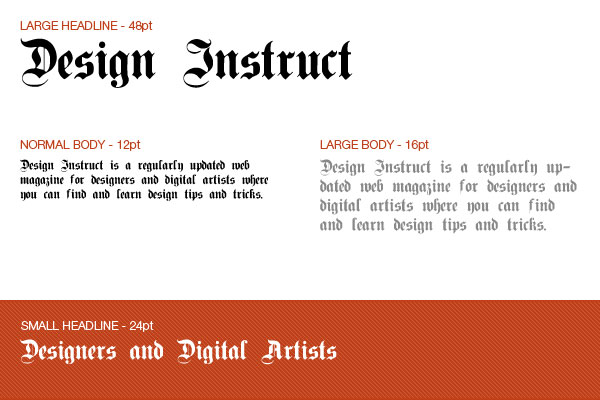
12+ Blackletter Font Free Creativefabrica. It is customary to divide blackletter fonts chronologically on textura, rotunda, schwabacher and fraktur. 1001 free fonts offers a huge selection of free fonts. Only fonts with accents euro. Aginoe modern sans font family, black gothic font, blackletter, fraktur, gothic font, label shapes, medieval, medieval font, tattoo illustration. Blackletter fonts have letters that are very bold and ornate. We have 312 free blackletter fonts to offer for direct downloading · 1001 fonts is your favorite site for free fonts since 2001. 23 free blackletter fonts direct download. Download the best free blackletter fonts, that are hand picked collections by our editorial experts and can be used on mac, pc, website. Download 10,000 fonts with one click for $19.95. Blackletter fonts imitate the handwritings used in medieval manuscripts, predominantly in europe. Graphite blackletter font is a display typeface read more. The best selection of blackletter fonts for windows and macintosh. We have 268 free blackletter fonts to offer for direct downloading · 1001 fonts is your favorite site for free fonts. It is a western calligraphy style that was used in europe from 1100s to the 1600s. Licensed for personal and commercial use.
53 Free Blackletter Fonts Dafont Free. We have 268 free blackletter fonts to offer for direct downloading · 1001 fonts is your favorite site for free fonts. Aginoe modern sans font family, black gothic font, blackletter, fraktur, gothic font, label shapes, medieval, medieval font, tattoo illustration. Download the best free blackletter fonts, that are hand picked collections by our editorial experts and can be used on mac, pc, website. Blackletter fonts have letters that are very bold and ornate. Graphite blackletter font is a display typeface read more. Only fonts with accents euro. Download 10,000 fonts with one click for $19.95. The best selection of blackletter fonts for windows and macintosh. It is customary to divide blackletter fonts chronologically on textura, rotunda, schwabacher and fraktur. 23 free blackletter fonts direct download. 1001 free fonts offers a huge selection of free fonts. Licensed for personal and commercial use. Blackletter fonts imitate the handwritings used in medieval manuscripts, predominantly in europe. We have 312 free blackletter fonts to offer for direct downloading · 1001 fonts is your favorite site for free fonts since 2001. It is a western calligraphy style that was used in europe from 1100s to the 1600s.
By typesetter and type designer dieter steffmann, cloister blackletter is a popular gothic script font. Aginoe modern sans font family, black gothic font, blackletter, fraktur, gothic font, label shapes, medieval, medieval font, tattoo illustration. Download the best free blackletter fonts, that are hand picked collections by our editorial experts and can be used on mac, pc, website. Blackletter extra bold blackletter.extrabold.ttf 71 kb 2. Browse by popularity, category or alphabetical listing. Frax mouse sketches free font download. Fonts of this category «blackletter». Font, font family, gothic, roman, set, ttf suited to your project, and it does not matter whether it is a printed poster or picture monitor. Welcome to fontlot · your favorite site for free fonts. This page lists the blackletter, which you can download absolutely free of charge and without registration. Usage blackletter may be downloaded and used free of charge for both personal and commercial use, as. Collection of most popular free to download fonts for windows and mac. Blackletter fonts often based upon calligraphic letters was used throughout europe from 12th to 20th century for text or literary works. Click here and download 432+ different blackletter fonts. See it used in heinritzh sales's illustration tutorial. Download free blackletter fonts for commercial and personal use. 2 styles uncategorized 4 downloads. This gothic font has 57 glyphs count number in variety and 2048 units of this font are equal to 1em. Free fonts, fonts, download free fonts, font lot. Commercial use (99) free for personal use (73) free handwritten (1) from lo (2) frutilla (1) fuentes (0) fuentes (3) fuentes de letras (5) functional (12). Download blackletter font (2 styles). Licensed for personal and commercial use. Blackletter typeface fonts sometimes referred to as gothic, fraktur or old english, are characterized by tight spacing, condensed lettering, dense black texture, and highly decorated caps. We have more than 13000 free fonts in over 100 font categories, including all font styles and font faces. By typesetter and type designer dieter steffmann, cloister blackletter is a popular gothic script font. Total in section 27 of the fonts available to free download. You can download this font for free from right here for your personal use only. 23 free blackletter fonts direct download. Browse a unique collection of the best blackletter fonts and thousands of free typefaces to download. Licence included with all fonts ✓. Blackletter fonts imitate the handwritings used in medieval manuscripts, predominantly in europe.
300 Gambar Font Blackletter Terbaik Di 2020 Font Tipografi Monogram Logo Font Gratis. We have 268 free blackletter fonts to offer for direct downloading · 1001 fonts is your favorite site for free fonts. The best selection of blackletter fonts for windows and macintosh. Blackletter fonts have letters that are very bold and ornate. It is customary to divide blackletter fonts chronologically on textura, rotunda, schwabacher and fraktur. Only fonts with accents euro. Blackletter fonts imitate the handwritings used in medieval manuscripts, predominantly in europe. We have 312 free blackletter fonts to offer for direct downloading · 1001 fonts is your favorite site for free fonts since 2001. Aginoe modern sans font family, black gothic font, blackletter, fraktur, gothic font, label shapes, medieval, medieval font, tattoo illustration. It is a western calligraphy style that was used in europe from 1100s to the 1600s. Download the best free blackletter fonts, that are hand picked collections by our editorial experts and can be used on mac, pc, website. Licensed for personal and commercial use. 23 free blackletter fonts direct download. Download 10,000 fonts with one click for $19.95. Graphite blackletter font is a display typeface read more. 1001 free fonts offers a huge selection of free fonts.
It is customary to divide blackletter fonts chronologically on textura, rotunda, schwabacher and fraktur.
53 Free Blackletter Fonts Dafont Free. 23 free blackletter fonts direct download. Blackletter fonts have letters that are very bold and ornate. We have 312 free blackletter fonts to offer for direct downloading · 1001 fonts is your favorite site for free fonts since 2001. Licensed for personal and commercial use. Graphite blackletter font is a display typeface read more. The best selection of blackletter fonts for windows and macintosh. We have 268 free blackletter fonts to offer for direct downloading · 1001 fonts is your favorite site for free fonts. Download the best free blackletter fonts, that are hand picked collections by our editorial experts and can be used on mac, pc, website. Aginoe modern sans font family, black gothic font, blackletter, fraktur, gothic font, label shapes, medieval, medieval font, tattoo illustration. Blackletter fonts imitate the handwritings used in medieval manuscripts, predominantly in europe. It is a western calligraphy style that was used in europe from 1100s to the 1600s. 1001 free fonts offers a huge selection of free fonts. It is customary to divide blackletter fonts chronologically on textura, rotunda, schwabacher and fraktur. Download 10,000 fonts with one click for $19.95. Only fonts with accents euro.
Homerun Script Font Free Dafont Free. We have 268 free blackletter fonts to offer for direct downloading · 1001 fonts is your favorite site for free fonts. Graphite blackletter font is a display typeface read more. Download 10,000 fonts with one click for $19.95. Download the best free blackletter fonts, that are hand picked collections by our editorial experts and can be used on mac, pc, website. Only fonts with accents euro. It is customary to divide blackletter fonts chronologically on textura, rotunda, schwabacher and fraktur. Blackletter fonts have letters that are very bold and ornate. Aginoe modern sans font family, black gothic font, blackletter, fraktur, gothic font, label shapes, medieval, medieval font, tattoo illustration. 23 free blackletter fonts direct download. 1001 free fonts offers a huge selection of free fonts. We have 312 free blackletter fonts to offer for direct downloading · 1001 fonts is your favorite site for free fonts since 2001. Licensed for personal and commercial use. It is a western calligraphy style that was used in europe from 1100s to the 1600s. Blackletter fonts imitate the handwritings used in medieval manuscripts, predominantly in europe. The best selection of blackletter fonts for windows and macintosh.
Blackletter fonts often based upon calligraphic letters was used throughout europe from 12th to 20th century for text or literary works.
Crete Round Font Free By Typetogether Font Squirrel. The best selection of blackletter fonts for windows and macintosh. Only fonts with accents euro. Aginoe modern sans font family, black gothic font, blackletter, fraktur, gothic font, label shapes, medieval, medieval font, tattoo illustration. It is customary to divide blackletter fonts chronologically on textura, rotunda, schwabacher and fraktur. 1001 free fonts offers a huge selection of free fonts. We have 268 free blackletter fonts to offer for direct downloading · 1001 fonts is your favorite site for free fonts. 23 free blackletter fonts direct download. Graphite blackletter font is a display typeface read more. Licensed for personal and commercial use. It is a western calligraphy style that was used in europe from 1100s to the 1600s. Download 10,000 fonts with one click for $19.95. Download the best free blackletter fonts, that are hand picked collections by our editorial experts and can be used on mac, pc, website. Blackletter fonts have letters that are very bold and ornate. We have 312 free blackletter fonts to offer for direct downloading · 1001 fonts is your favorite site for free fonts since 2001. Blackletter fonts imitate the handwritings used in medieval manuscripts, predominantly in europe.
110 Free Blackletter Fonts Fontsc. We have 312 free blackletter fonts to offer for direct downloading · 1001 fonts is your favorite site for free fonts since 2001. Licensed for personal and commercial use. Aginoe modern sans font family, black gothic font, blackletter, fraktur, gothic font, label shapes, medieval, medieval font, tattoo illustration. It is a western calligraphy style that was used in europe from 1100s to the 1600s. We have 268 free blackletter fonts to offer for direct downloading · 1001 fonts is your favorite site for free fonts. Blackletter fonts have letters that are very bold and ornate. Blackletter fonts imitate the handwritings used in medieval manuscripts, predominantly in europe. Graphite blackletter font is a display typeface read more. It is customary to divide blackletter fonts chronologically on textura, rotunda, schwabacher and fraktur. 23 free blackletter fonts direct download. The best selection of blackletter fonts for windows and macintosh. 1001 free fonts offers a huge selection of free fonts. Download the best free blackletter fonts, that are hand picked collections by our editorial experts and can be used on mac, pc, website. Only fonts with accents euro. Download 10,000 fonts with one click for $19.95.
We have 312 free blackletter fonts to offer for direct downloading · 1001 fonts is your favorite site for free fonts since 2001. Collection of most popular free to download fonts for windows and mac. This page lists the blackletter, which you can download absolutely free of charge and without registration. Total in section 27 of the fonts available to free download. We have more than 13000 free fonts in over 100 font categories, including all font styles and font faces. Free fonts, fonts, download free fonts, font lot. Licensed for personal and commercial use. Blackletter fonts have letters that are very bold and ornate. We have 312 free blackletter fonts to offer for direct downloading · 1001 fonts is your favorite site for free fonts since 2001. Graphite blackletter font is a display typeface read more.